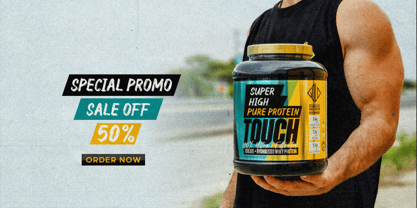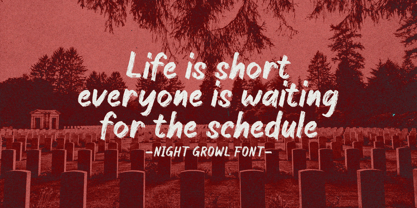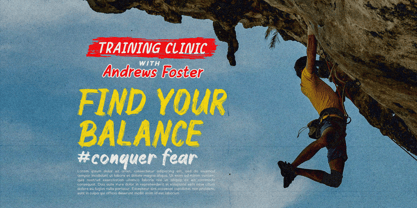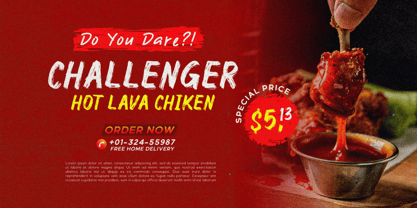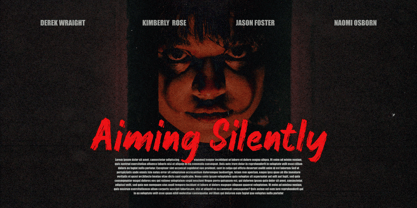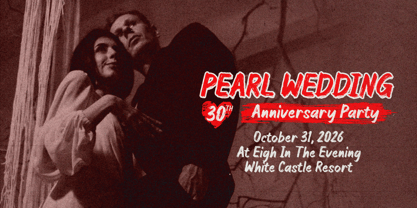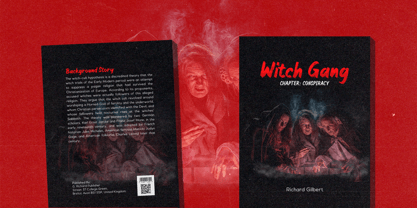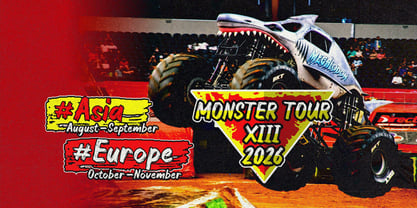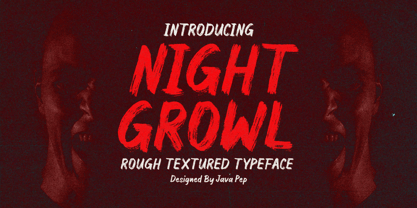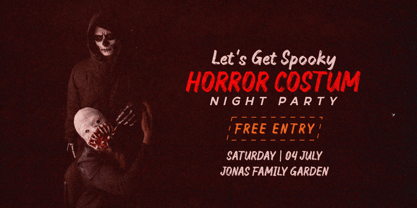
Night Growl
by Java Pep
The Night Growl Font Family was designed by Java Pep and published by Java Pep. Night Growl contains 2 styles and family package options. More about this family
Proudly present a rough-textured typeface called Night Growl font. This font is inspired by handwriting with a dry oiled brush, and we are trying to keep the rough texture in every glyph, so it has a lot of vibes and purposes, such as bold, fun, creepy & spooky, gothic, masculine, and sporty. Night Growl font is perfect for branding, logotypes, posters, banners, advertising, short quotes, headlines, titles, invitations, etc. Night Growl font supports more than 25 languages and full standard characters, uppercase, lowercase, numerals, and punctuation.